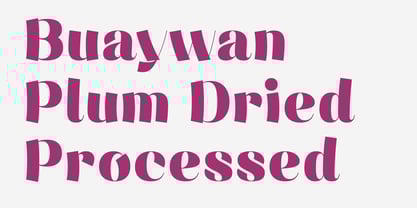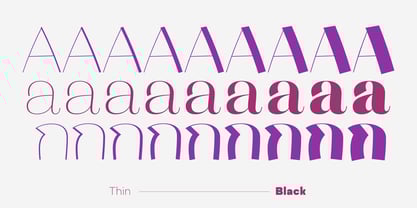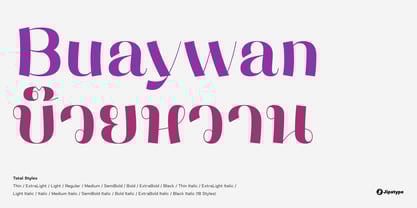
Buaywan
by Jipatype
The Buaywan Font Family was designed by Anupap Jaichumnan and published by Jipatype. Buaywan contains 18 styles and family package options. More about this family
Buaywan is a high-contrast sans-serif typeface with a unique, playful spirit. Its distinctive vertical strokes are slightly curved instead of perfectly straight, giving the font a gentle, informal feel. The Thai characters include traditional loops (หัว).
Overall, Buaywan feels sweet, friendly, and cheerful—like a graceful and elegant young woman. It’s available in 18 styles and supports both Thai and Latin-1 languages, making it perfect for headlines and a wide range of print projects.
Designers: Anupap Jaichumnan
Foundry: Jipatype